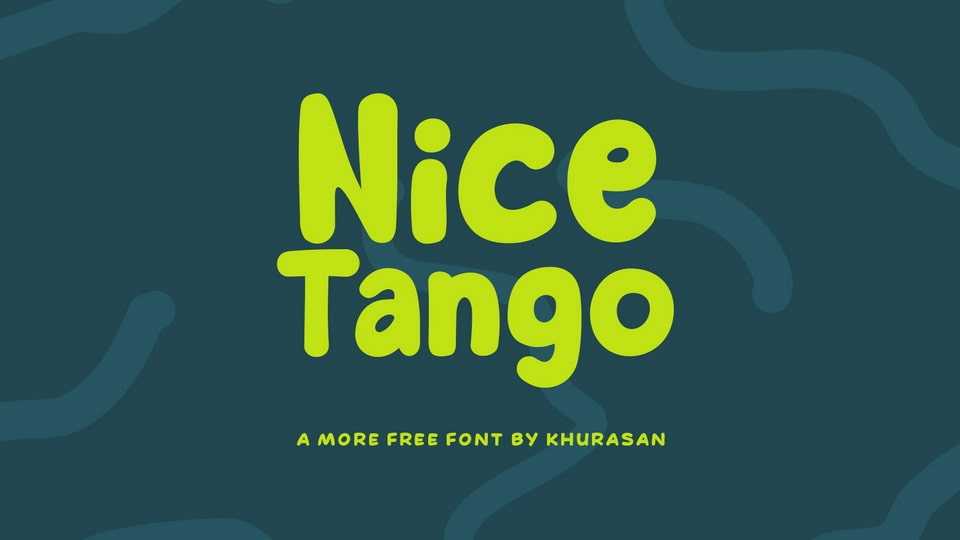
Download Nice Tango font, a hand-lettered comic typeface that transforms your designs into a playful visual journey. With Nice Tango font, your designs will radiate with a sense of carefree joy and imaginative exploration.